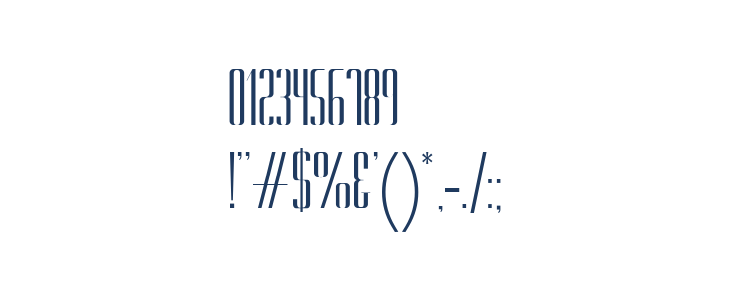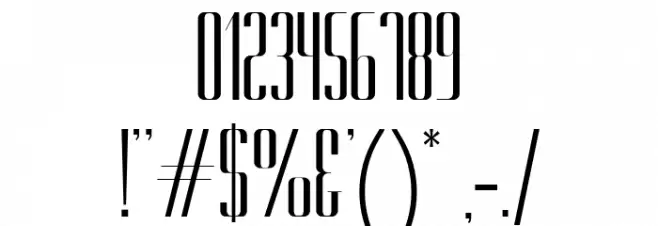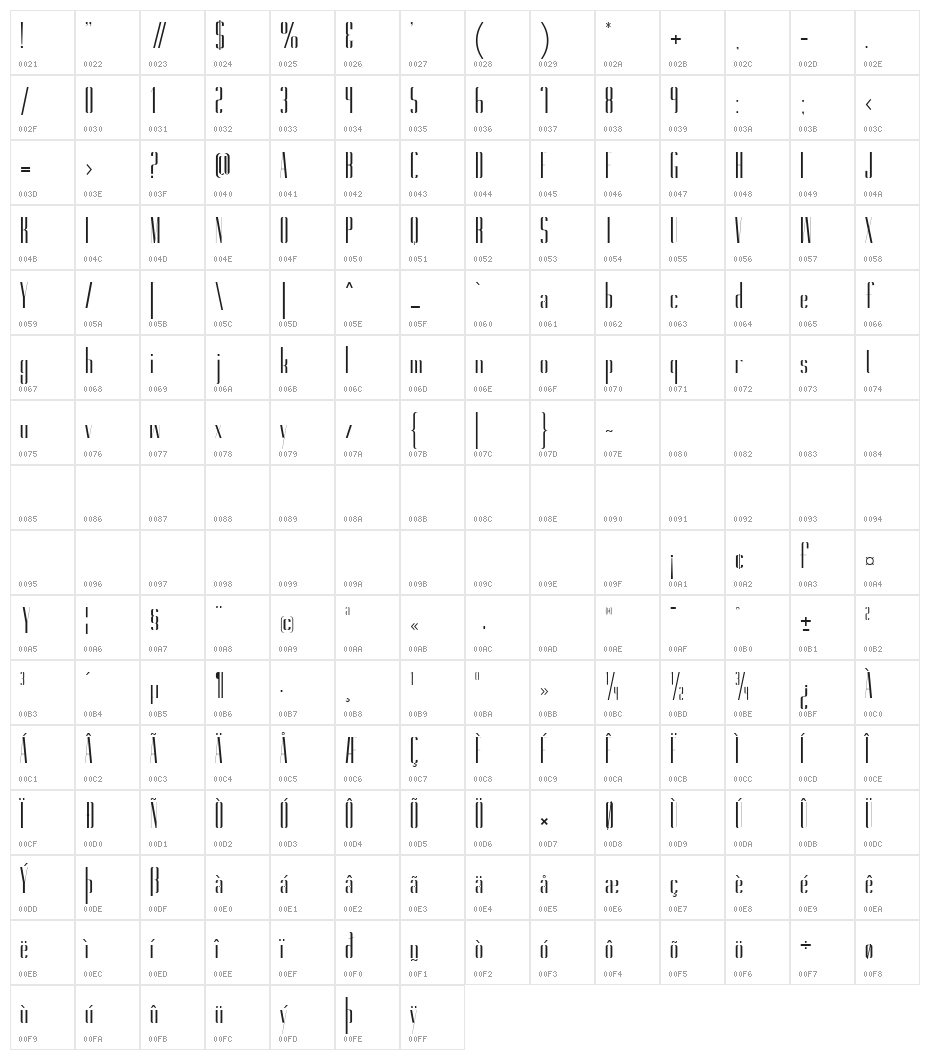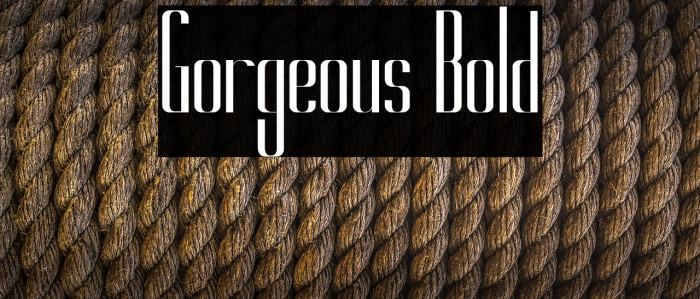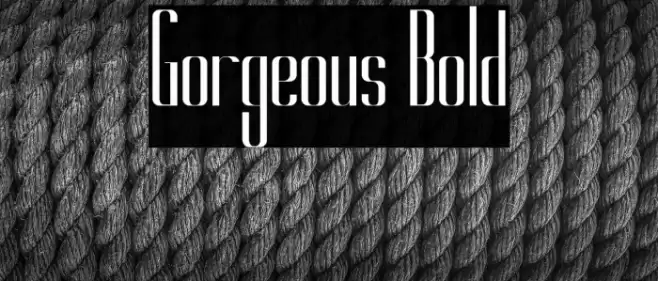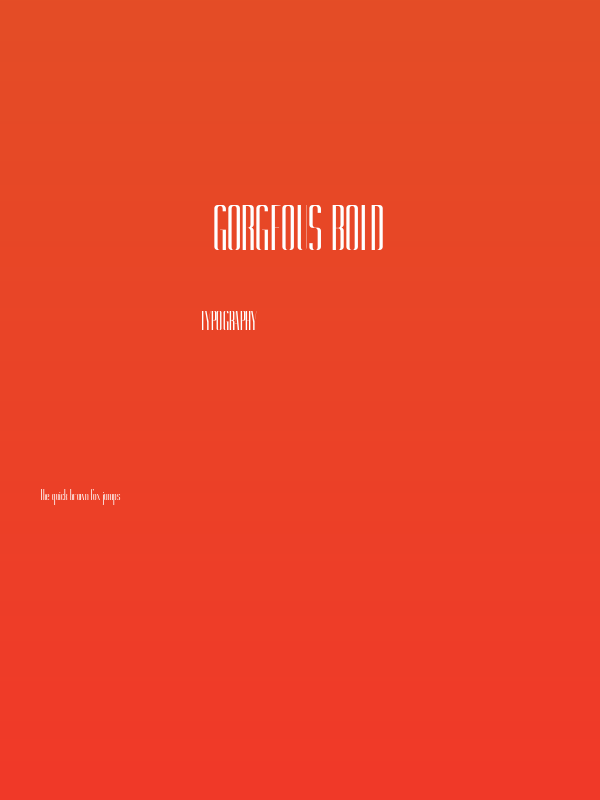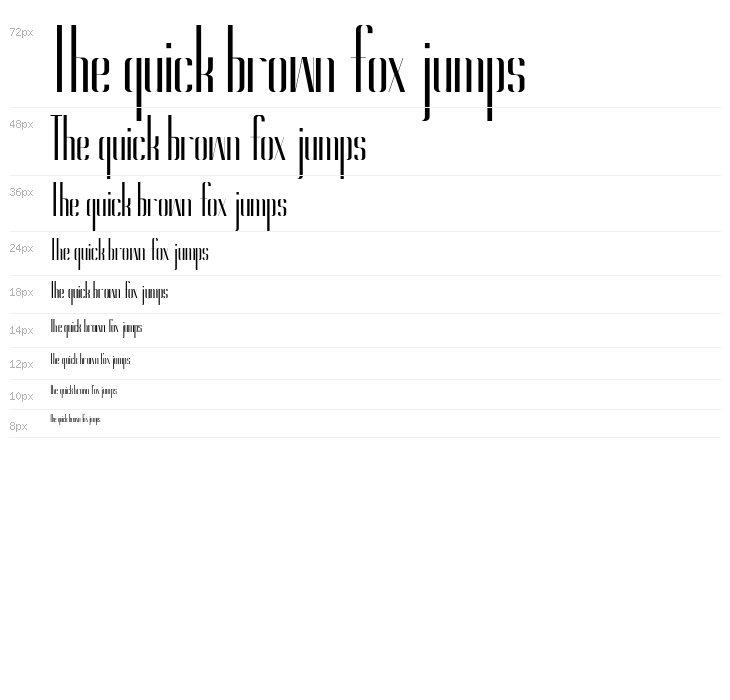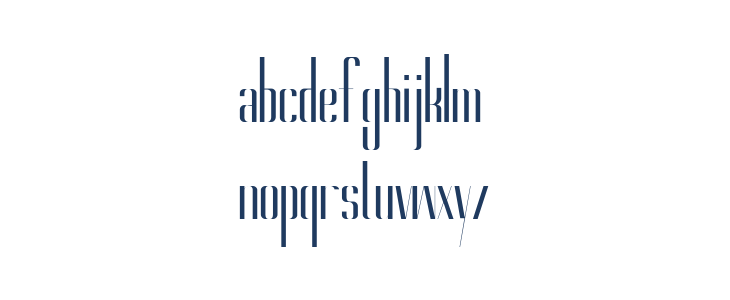
Gorgeous Bold Font
Gorgeous Bold Description
This font features a striking and elegant design with tall, narrow letterforms that convey a sense of sophistication and modernity. The characters have a high contrast between thick and thin strokes, giving them a dynamic and stylish appearance. The uppercase letters are particularly elongated, while the lowercase letters maintain a consistent height, adding to the font's unique aesthetic. The numerals are similarly slender, complementing the overall design. Special characters are included, maintaining the same elegant style, making this font versatile for various applications.
| Overall Style | Modern, Elegant |
| Proposed Projects | Ideal for fashion magazines, luxury branding, high-end product packaging, and elegant invitations. |